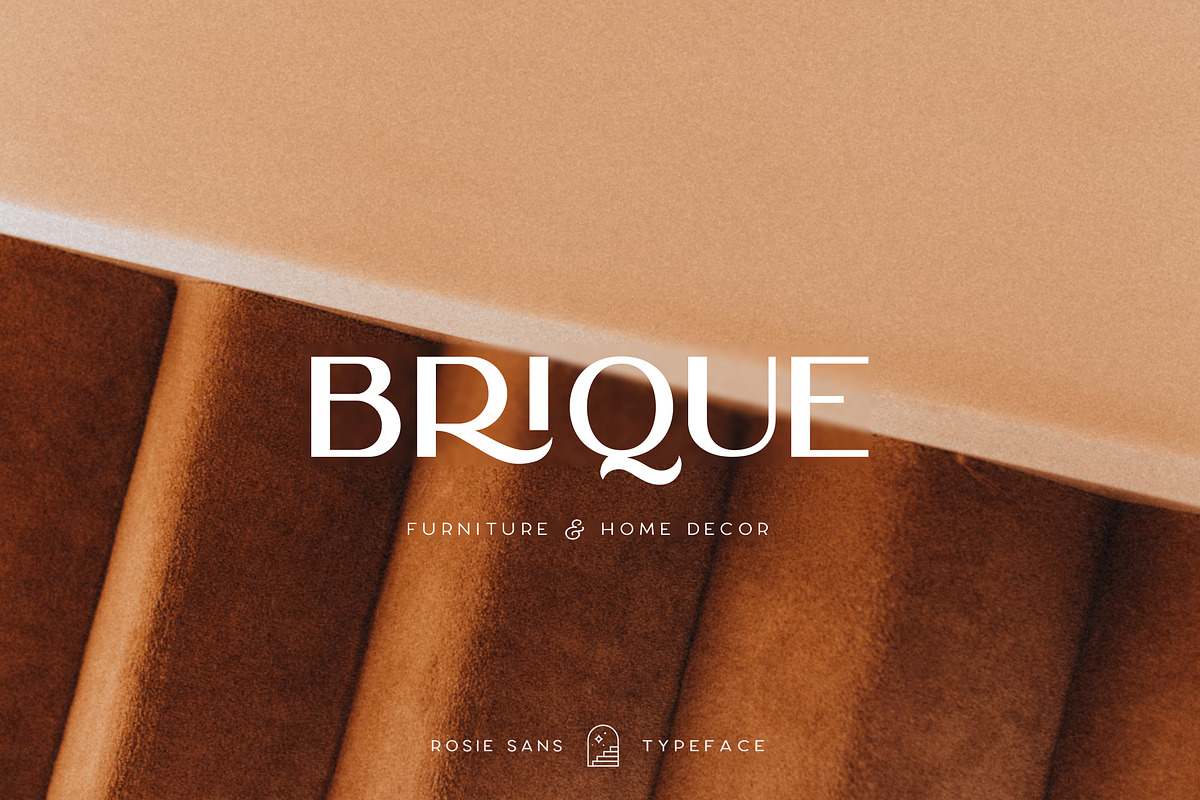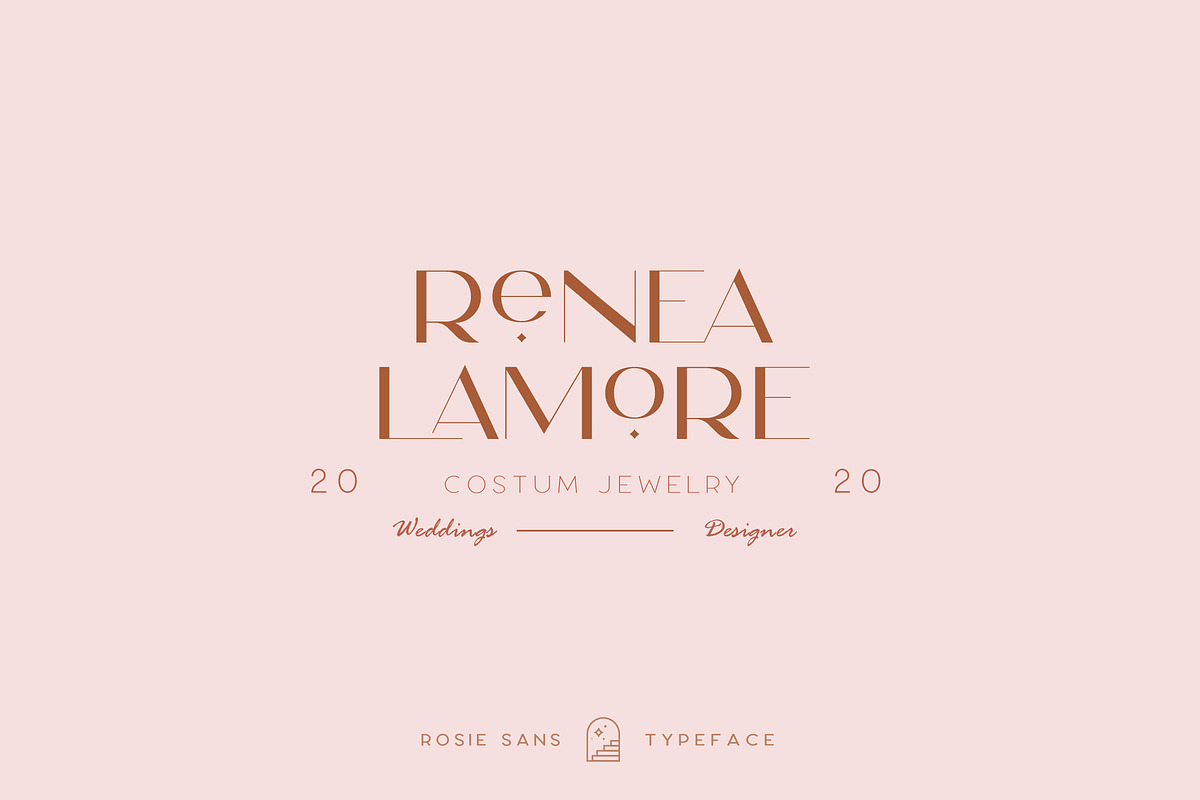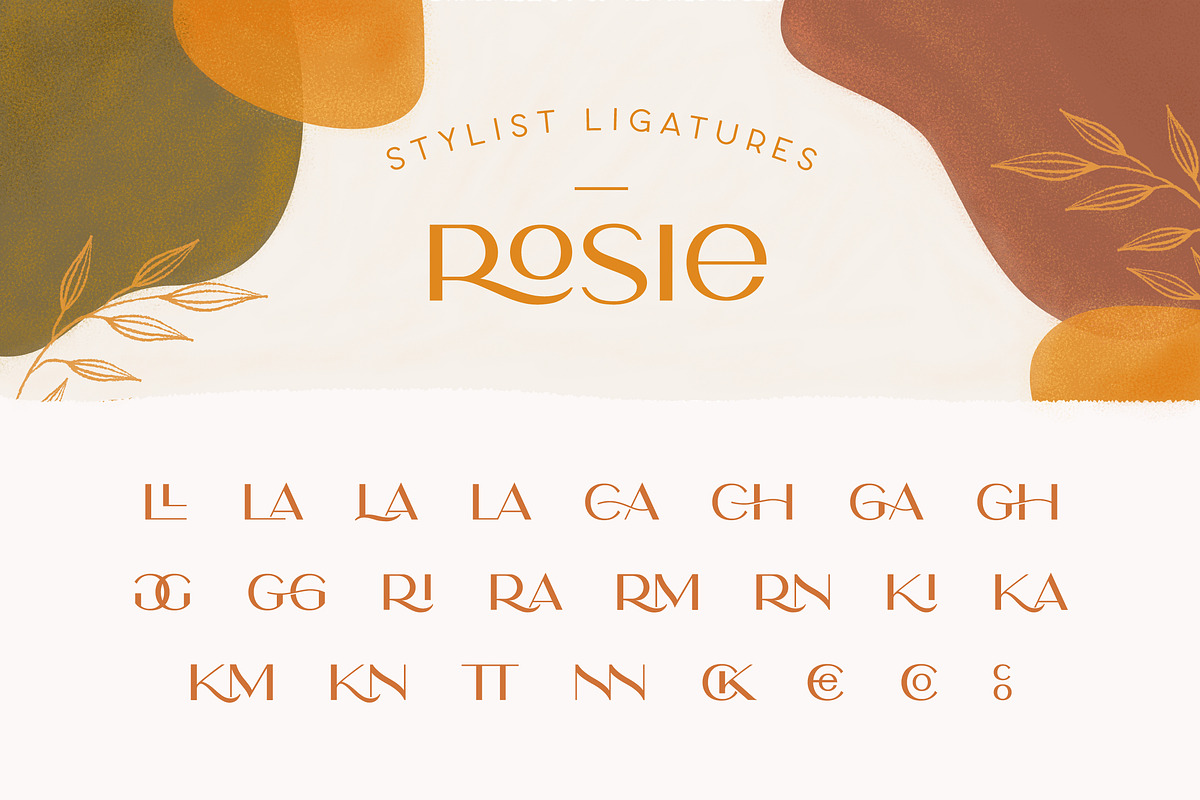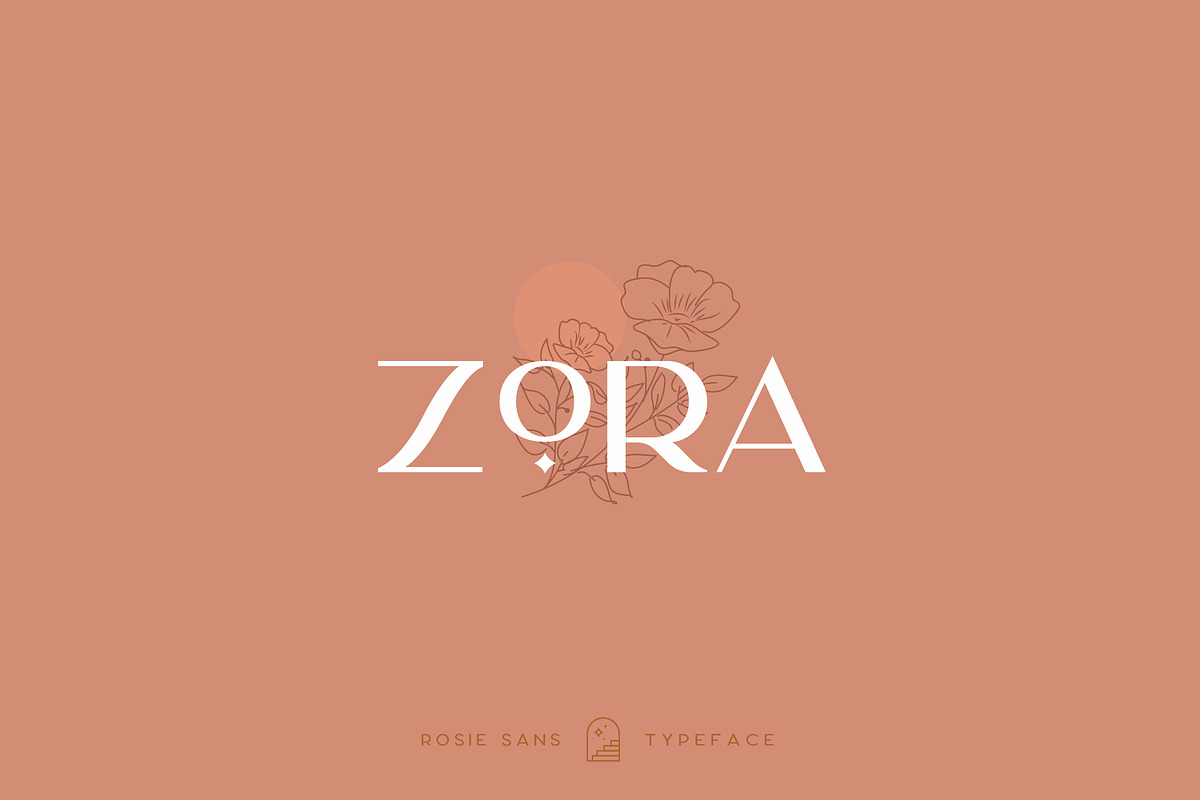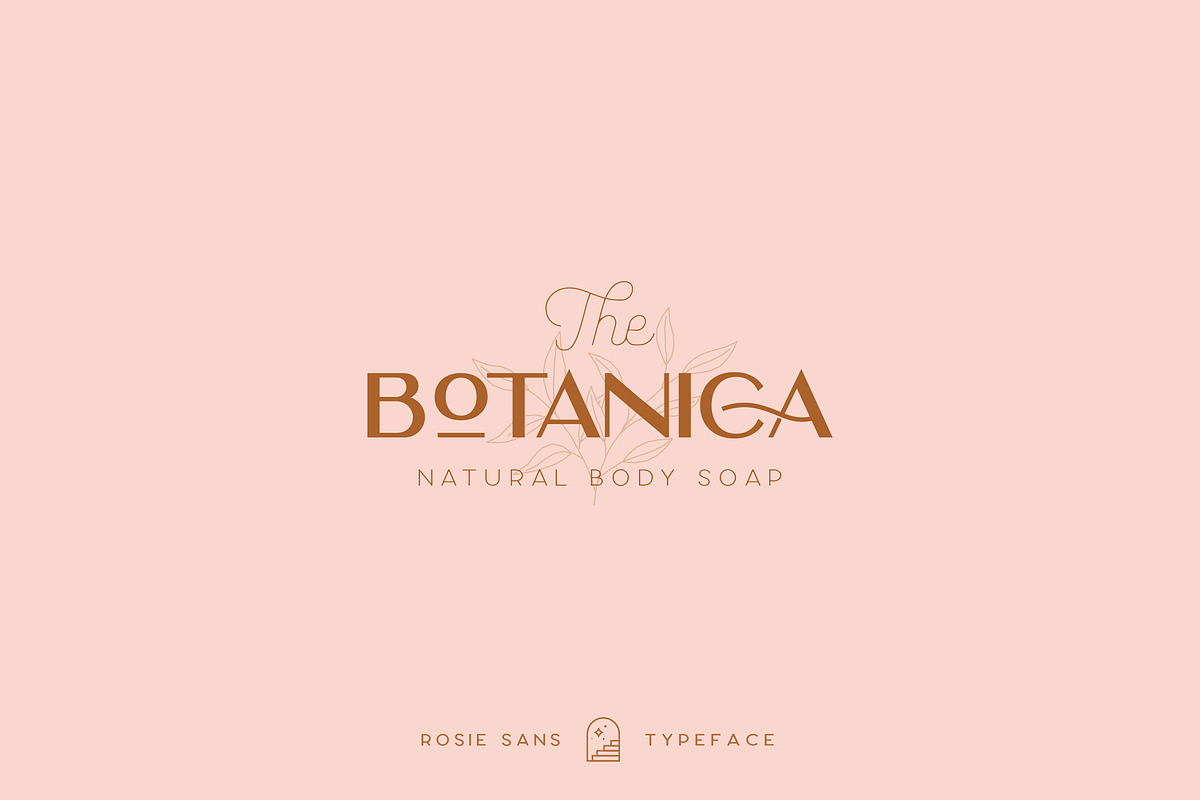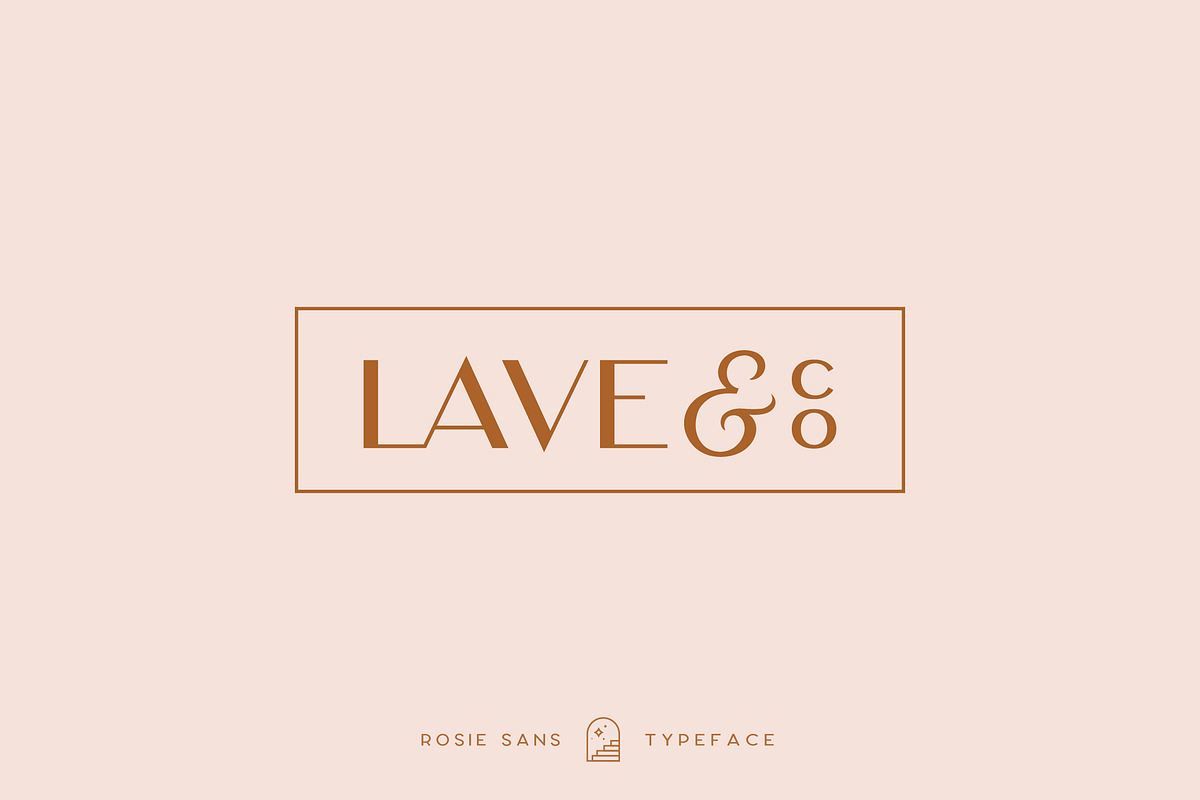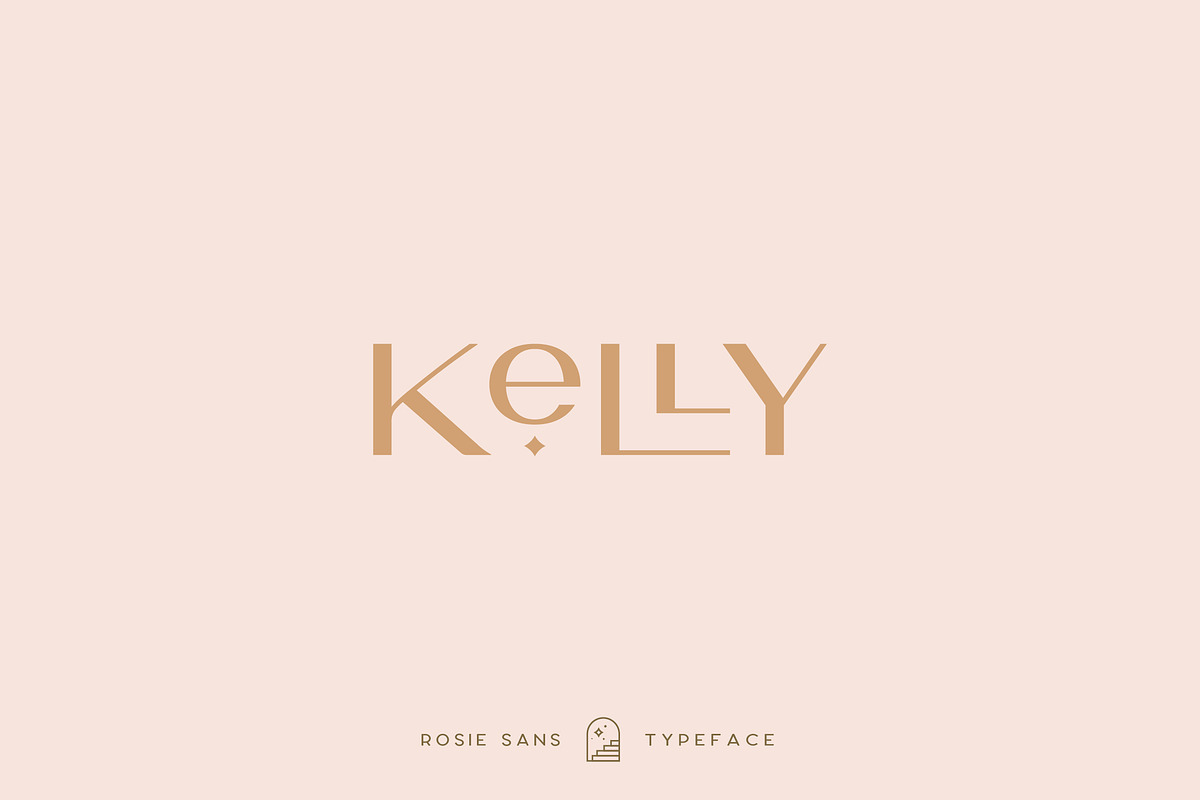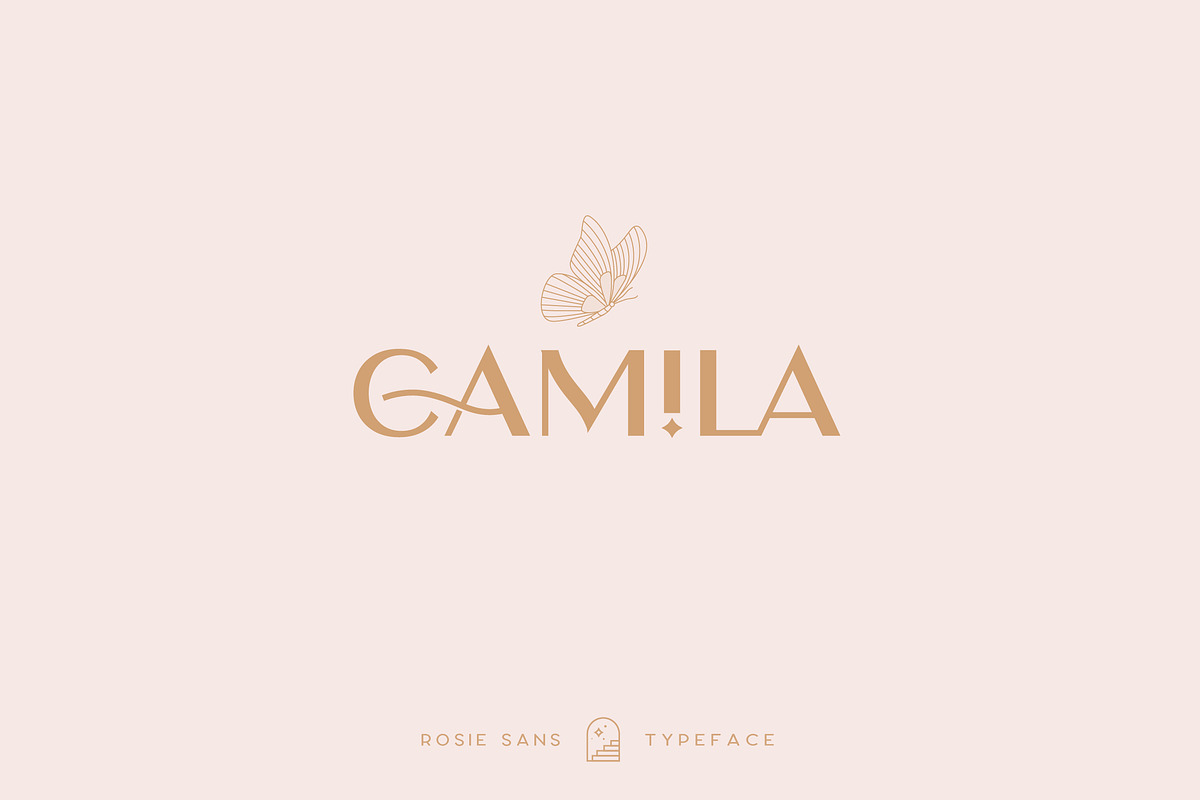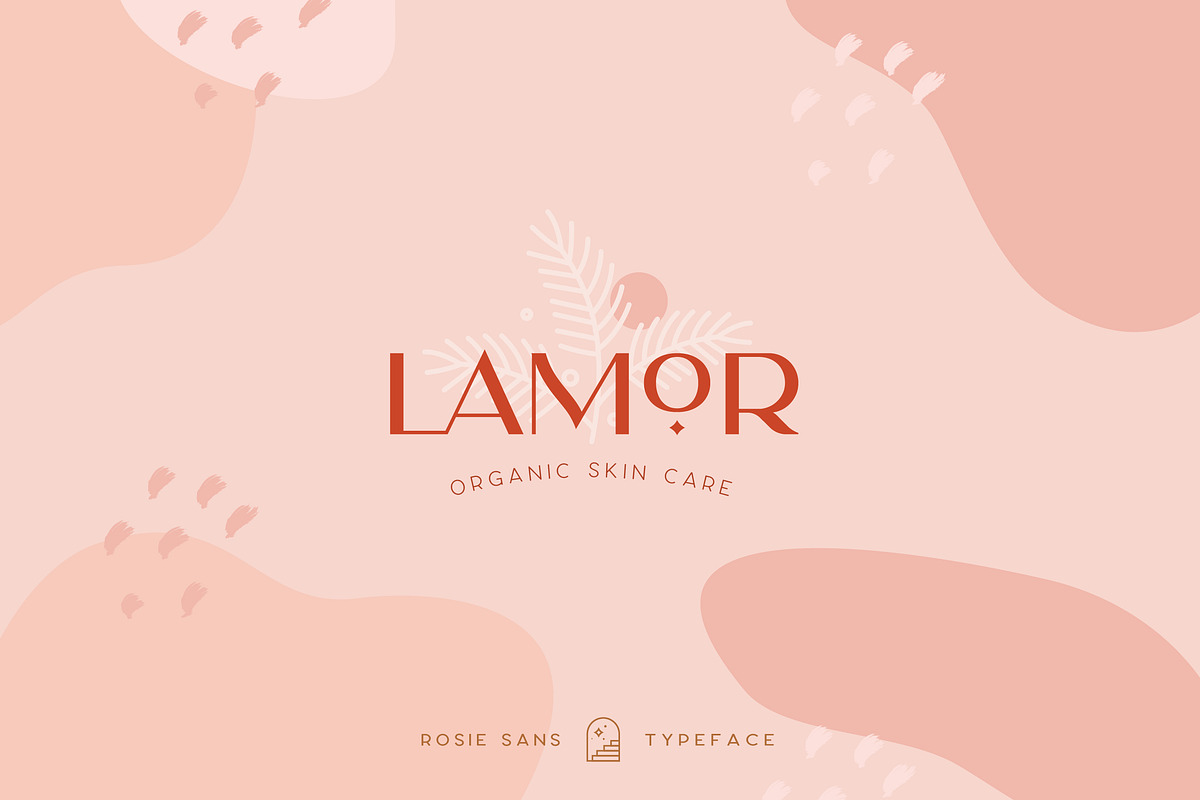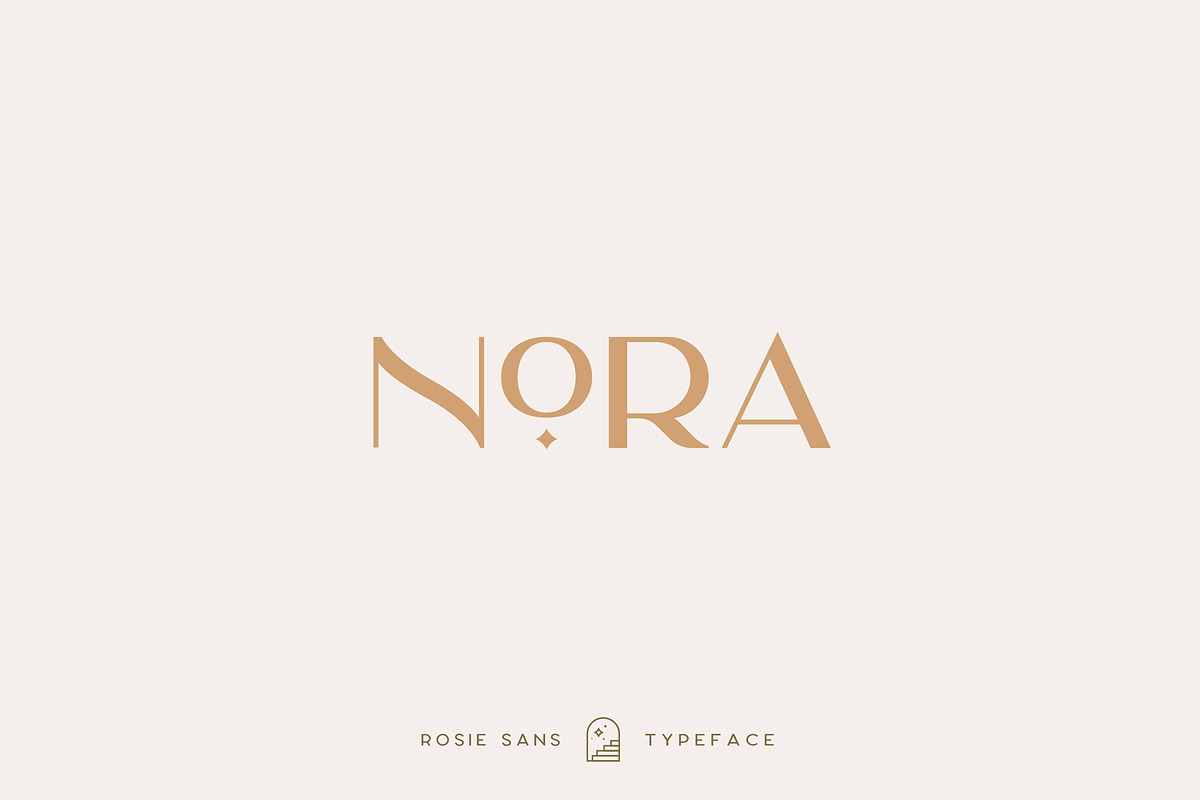
Rosie Sans - Gorgeous Typeface
Introducing Rosie Sans - A Gorgeous modern sans serif with ton of stylistic alternates to choose. Its bold clean and simple. Works wonderfully on its own for logos, headlines, posters, packaging and many more! And with Three different weights to choose, your option to create more unique and versatile design is a lot wider. Have fun and create more.. Your Imagination only your limit!!
3 Weights font
All caps
Stylistic Alternates & Ligatures
Accented characters
Multiple Languages Supported